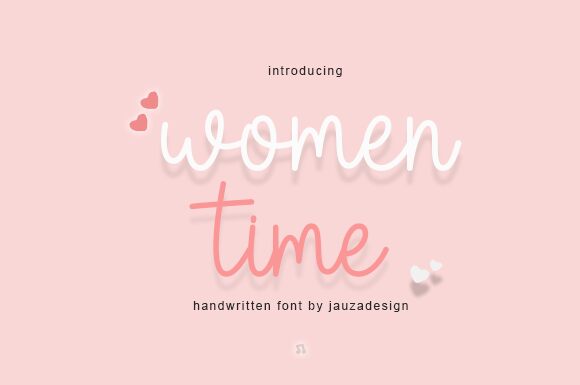
Woman Time, designed by Danar Nugroho, is a delicate and thin lettered script font. Its handwritten style adds a touch of elegance to any project.
With its semi-light weight, it exudes a sense of subtlety and grace. Whether you're designing wedding invitations, feminine logos, or creating stunning social media graphics, Woman Time will effortlessly elevate your creations. It's PUA encoded for easy access to its extensive collection of glyphs and ligatures.